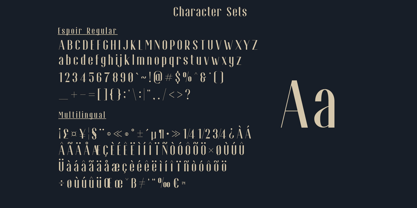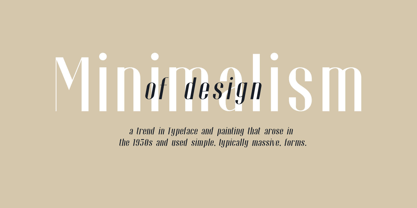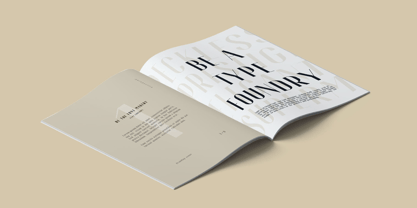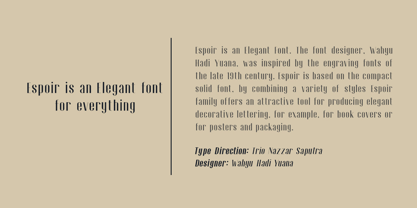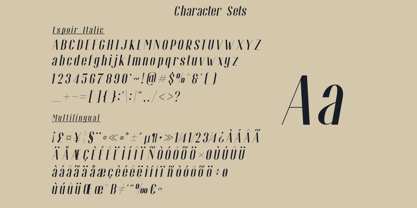
Espoir
by Craft Supply Co
The Espoir Font Family was designed by Trio Nazzar Saputra, Wahyu Hadi Yuana and published by Craft Supply Co. Espoir contains 2 styles and family package options. More about this family
Introducing Espoir font family is an Elegant and Fancy Font. This font was inspired by the engraving fonts of the late 19th century. Espoir is based on the compact solid font, by combining a variety of styles. Espoir font family offers an attractive tool for producing elegant decorative lettering, for example, for book covers or for posters and packaging.
Designers: Trio Nazzar Saputra, Wahyu Hadi Yuana
Foundry: Craft Supply Co